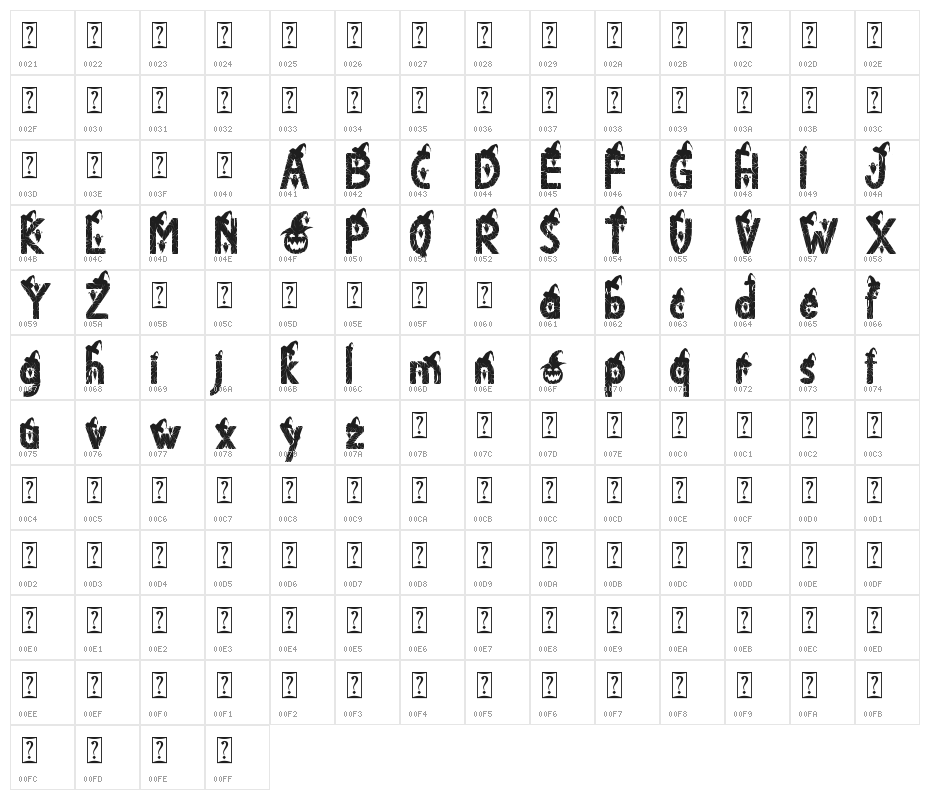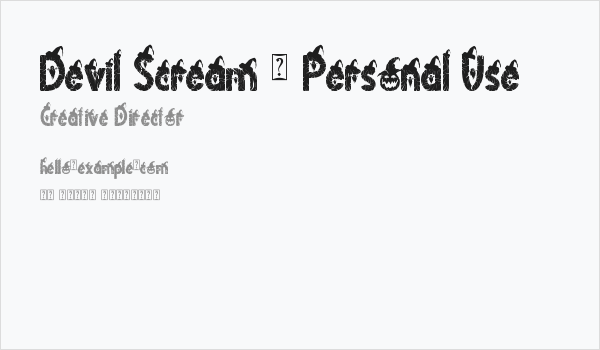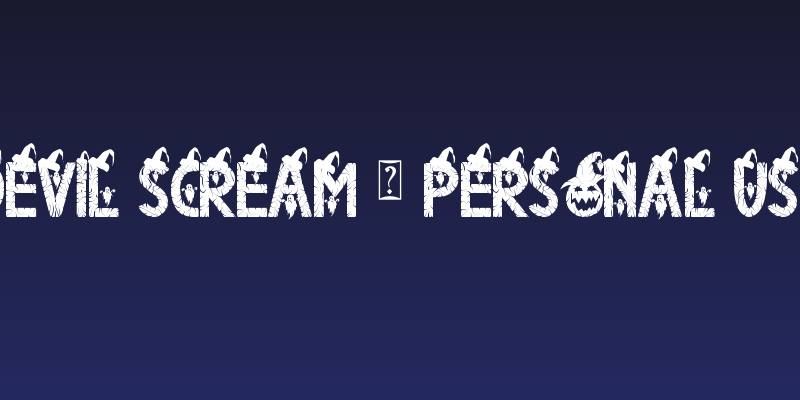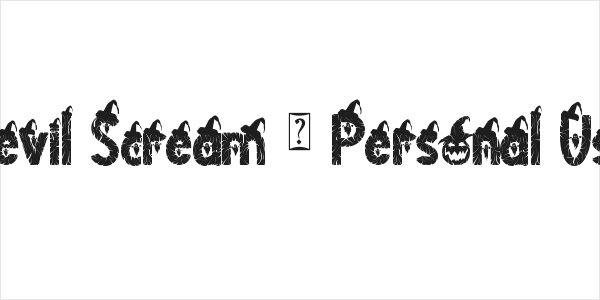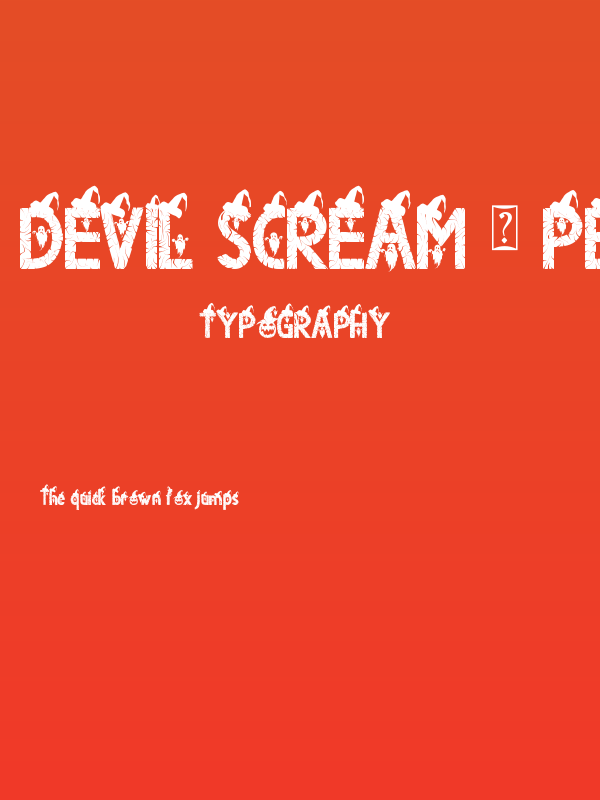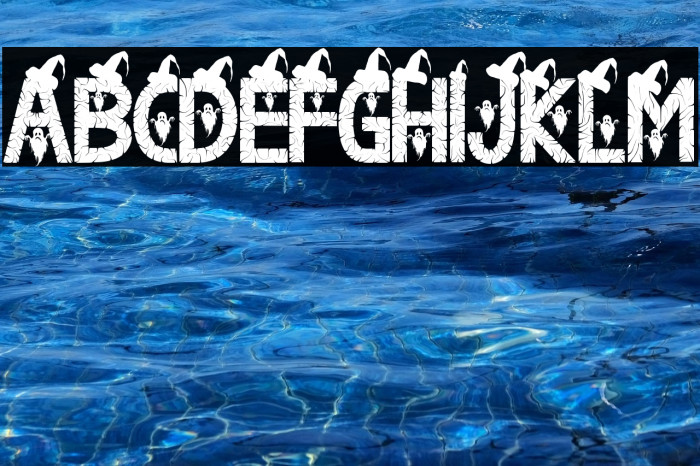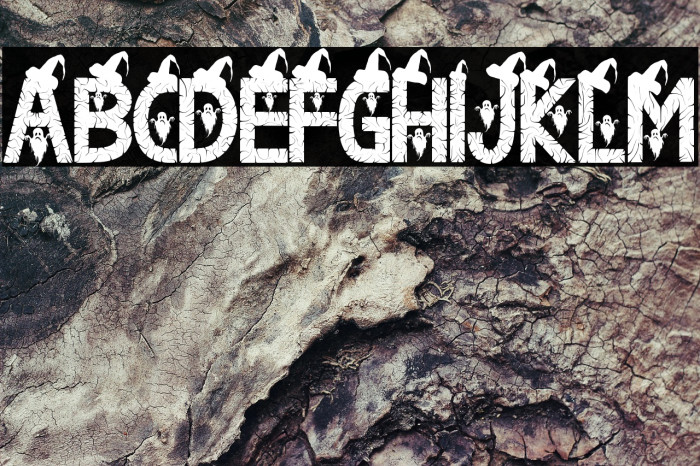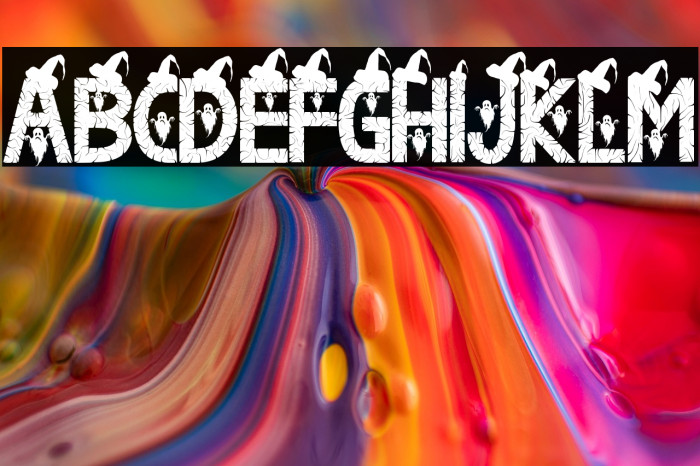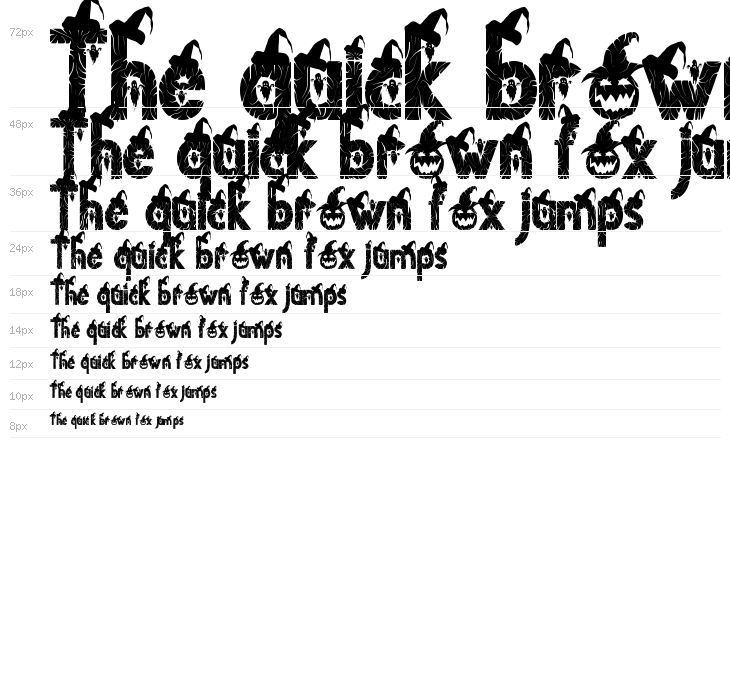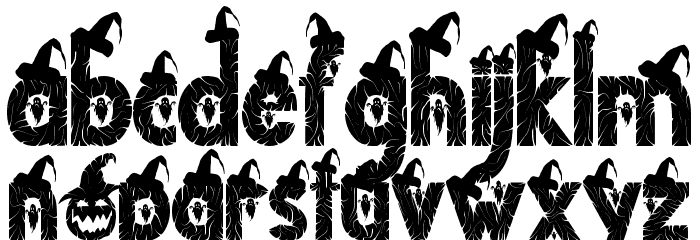
Devil Scream - Personal Use Font
Devil Scream - Personal Use Description
This font features a bold and dramatic design with a horror-themed aesthetic. Each character is adorned with jagged edges and sharp, thorn-like details, giving it a menacing and eerie appearance. The uppercase and lowercase letters are consistent in their dark, gothic style, making them perfect for creating a chilling atmosphere. The font's unique design elements, such as the devilish horns and claw-like extensions, add to its sinister charm. The overall look is both eye-catching and unsettling, making it ideal for projects that require a spooky or Halloween-themed touch.
| Proposed Projects | Ideal for Halloween posters, horror movie titles, haunted house flyers, and spooky event invitations. |